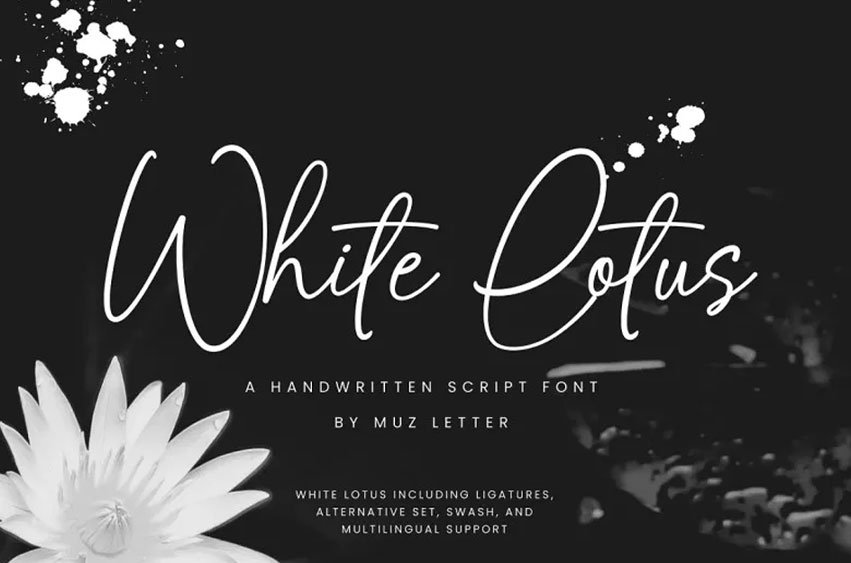
White Lotus Font
White Lotus Font is an elegant handmade signature font perfect for wedding invitations stationary photography social media posts packaging of products greeting card packaging greeting card packaging and greeting card greetings and many other applications.
Perfectly crafted to meet all your design needs.